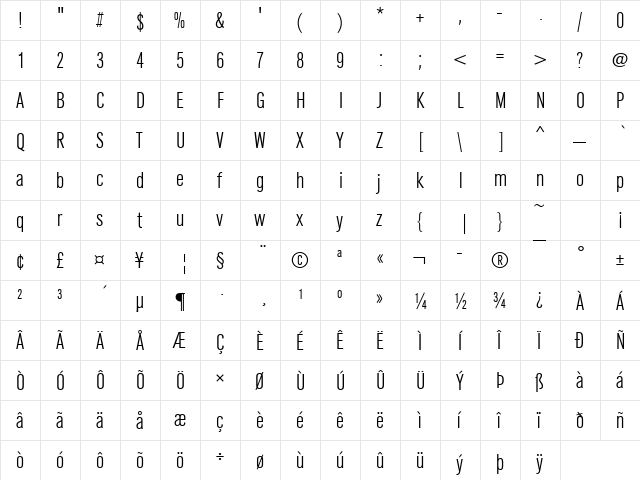
URWGroteskTLigCon Regular Font Preview
URWGroteskTLigCon Regular
Design Context for URWGroteskTLigCon Typeface
URWGroteskTLigCon takes a clean, functional approach — its unadorned letterforms prioritise legibility and work reliably across screen and print environments.
Font Pairing: Works well alongside a characterful serif or display font that can carry the expressive load while URWGroteskTLigCon handles the functional copy.
Pro Tip: Use URWGroteskTLigCon for UI labels, navigation, and short-form body copy where clean legibility is the priority.